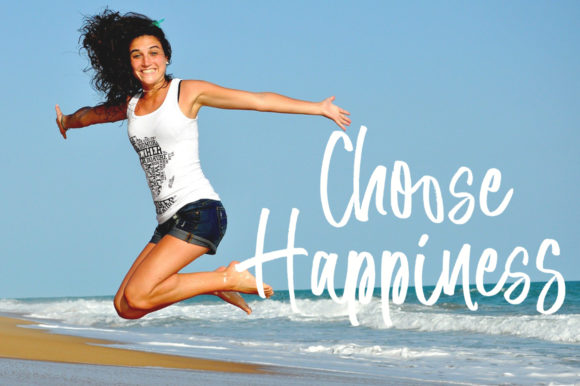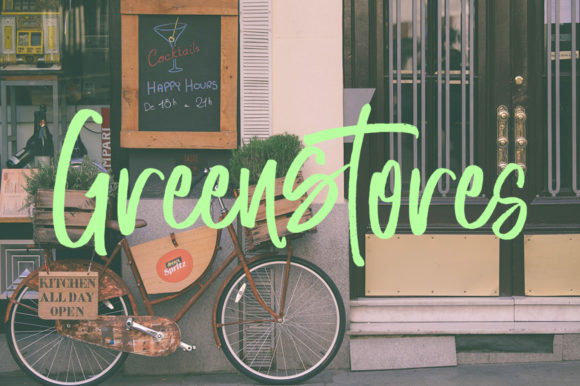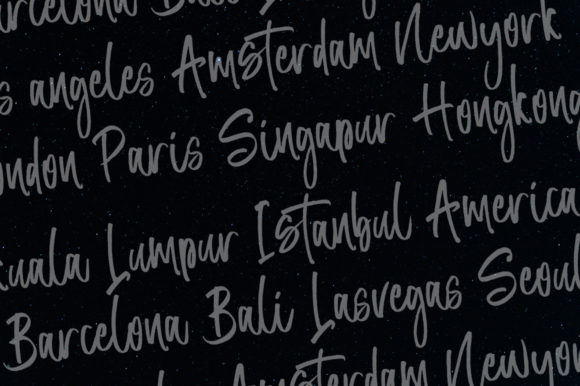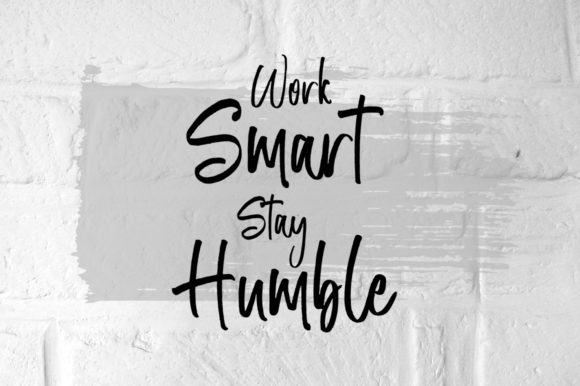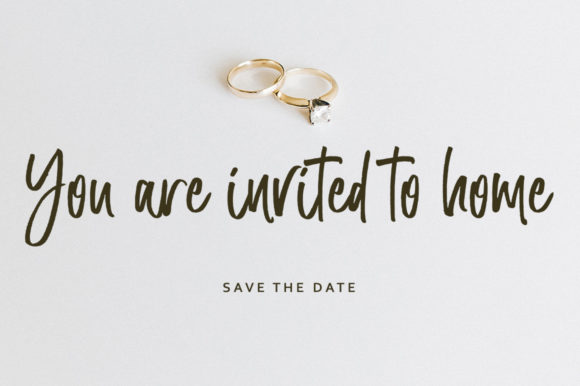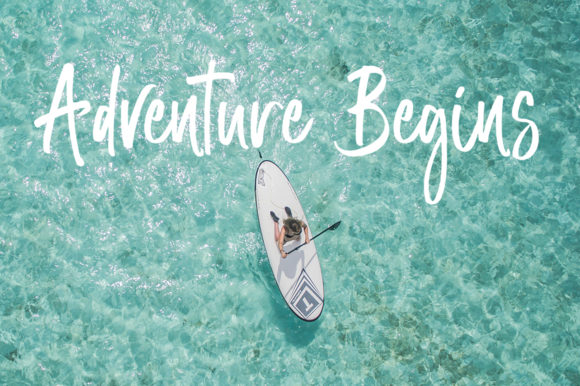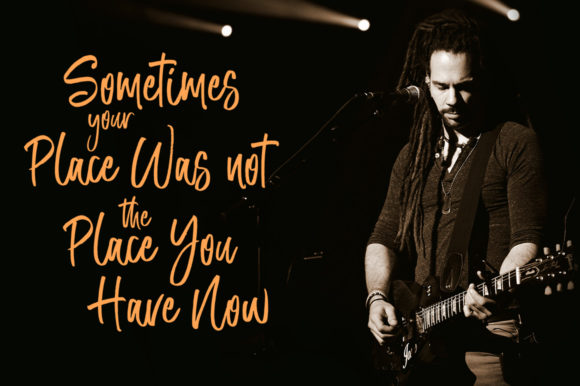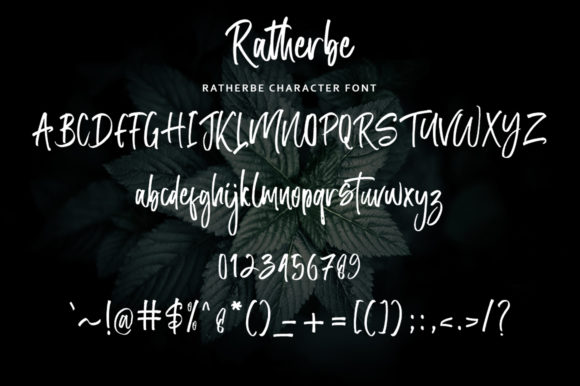
Ratherbe Font
About Ratherbe Font
Ratherbe is a new modern brush font with an irregular base line. It is perfectly suited for a wide variety of projects!